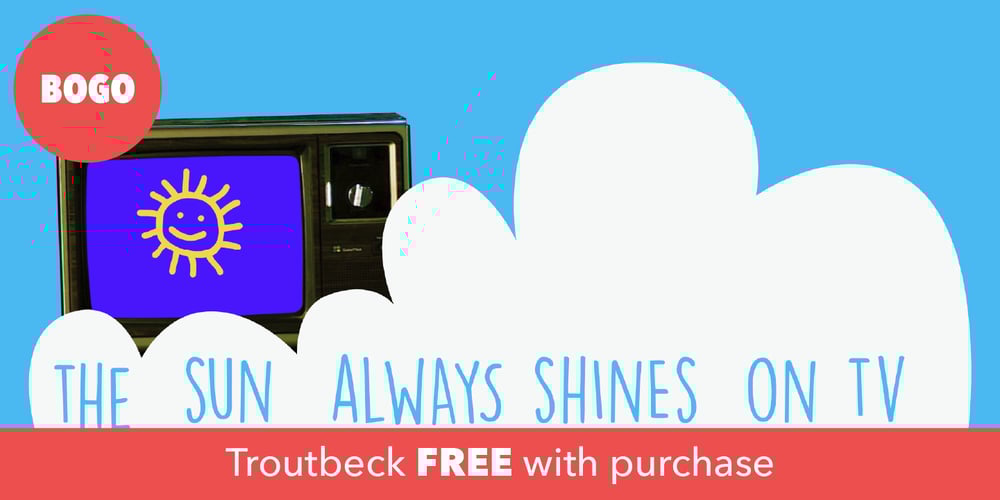
Lemon Yellow Sun Font Family was designed by David Kerkhoff and published by Hanoded. Lemon Yellow Sun contains 6 styles and family package options. Lemon Yellow Sun is a line from my favorite Pearl Jam song – Jeremy. It also happens to be the title of a Stiltskin song, so I had to name a font after it. LYS is a tall, all caps typeface with lots of bouncy glyphs and lots of diacritics. Upper and lower case have been designed to mingle, so have a ball!This latest, 2024, edition comes with additional language support and better style linking.